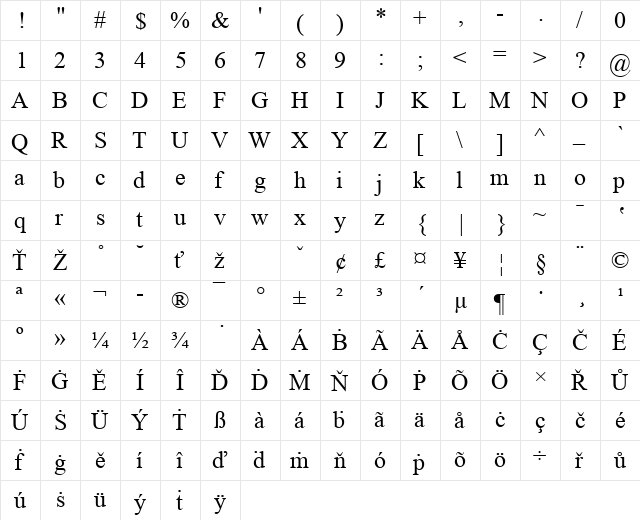
D頓athairn Regular
Design Context for D頓athairn Typeface
D頓athairn offers clean, dependable letterforms without strong stylistic allegiance, making it a practical choice for designers who need flexibility.